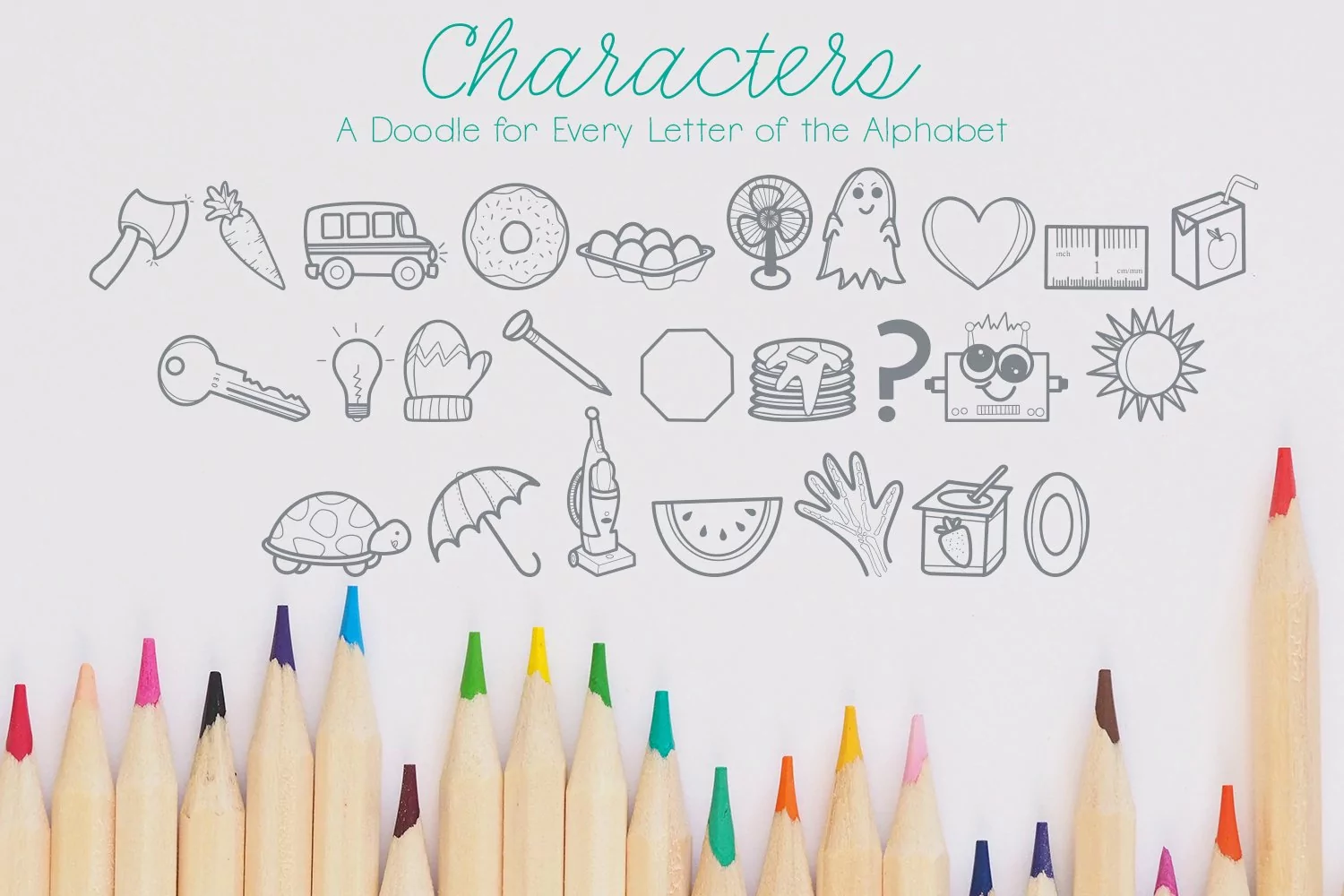
Teacher Print Duo
Introducing...AlphaDoodles! This font was hand-drawn with teachers in mind. This phonics-based font is perfect for all sorts of fun teacher and school-related projects. AlphaDoodles comes with 26 different doodles; one for each letter of the alphabet.